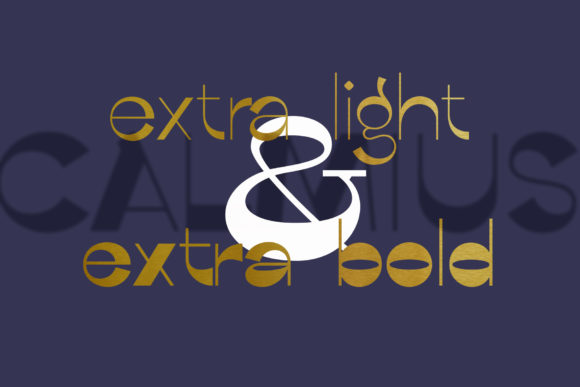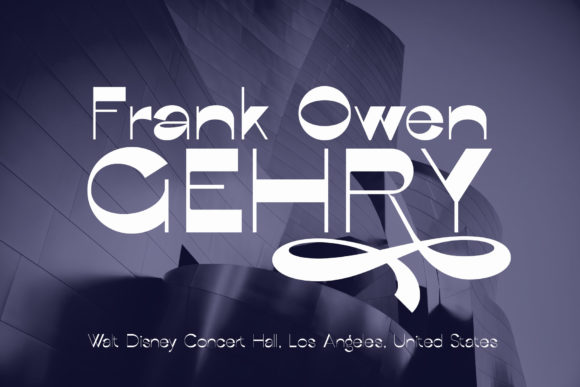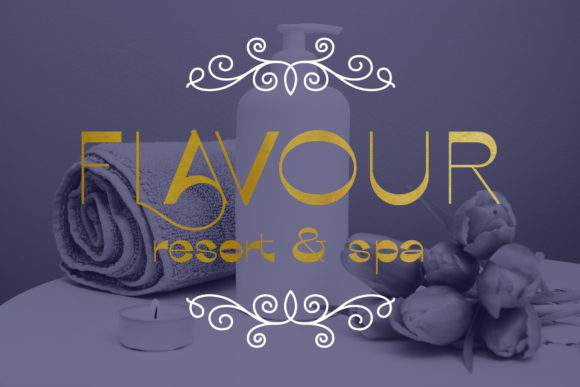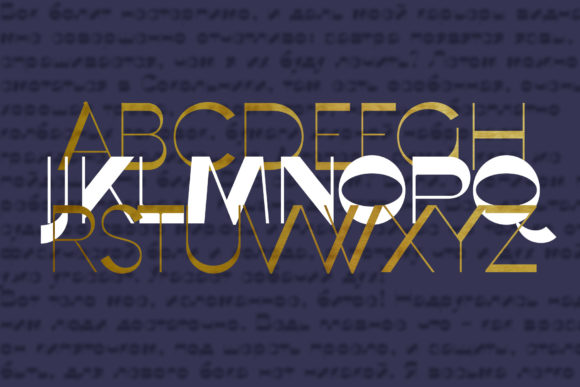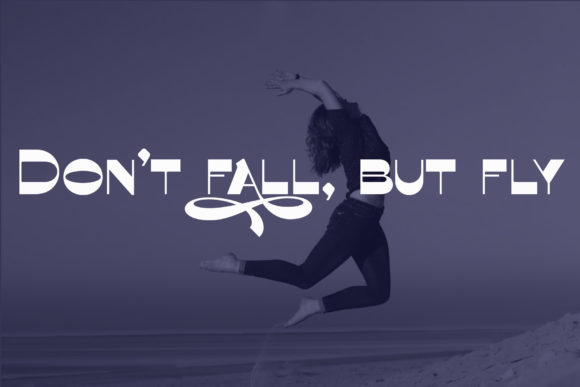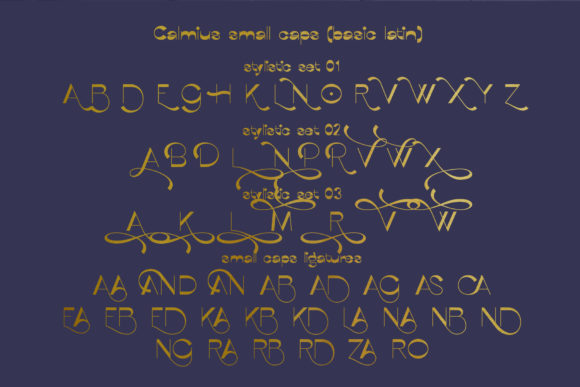
The Designer’s Delight: Calmius Font
I’ll never forget the time I was working on a branding project for a trendy new coffee shop. My client was specific about wanting a modern, stylish look that would appeal to the young and hip. As I scrolled through my font library, I stumbled upon Calmius – an incredibly modern and stylish sans serif font that caught my eye. I was immediately drawn to its clean lines, elegant curves, and versatility. It was as if the font was designed specifically for my project! In this article, I’ll share my experience with Calmius, its features, and how to make the most of it in your designs.
An Honest Review of Calmius
- ✨ Modern and stylish look: Calmius has a fresh and contemporary feel that will elevate your designs.
- ✅ Highly versatile: This font is perfect for a wide range of crafty ideas, from letterheads and titles to stationery.
- 💡 Excellent legibility: Calmius is clear and easy to read, even at small font sizes.
- 🎨 OpenType features: Calmius comes with a range of OpenType features, including stylistic alternates and glyphs, which allow for creative experimentation.
While Calmius is an excellent font, there are a few things to keep in mind:
- 🤔 Limited italic variation: The italic version of Calmius is not as distinct from the regular font as some designers might like.
- ⚠️ Not suitable for body text: While Calmius is legible, it’s not the best choice for long blocks of body text due to its modern, stylish feel.
A Practical Guide to Using Calmius
The Designer Inspiration Behind Calmius
Calmius was designed with the modern designer in mind. Its creator wanted to craft a font that was both stylish and versatile, perfect for a wide range of design applications. The font’s clean lines and elegant curves were inspired by the latest design trends, while its OpenType features were designed to give designers maximum creative control.
Q: What is Calmius font?
A: Calmius is a modern and stylish sans serif font designed for a wide range of crafty ideas, from letterheads and titles to stationery.
Q: Is Calmius suitable for body text?
A: While Calmius is legible, it’s not the best choice for long blocks of body text due to its modern, stylish feel.
Q: Does Calmius come with OpenType features?
A: Yes, Calmius comes with a range of OpenType features, including stylistic alternates and glyphs, which allow for creative experimentation.